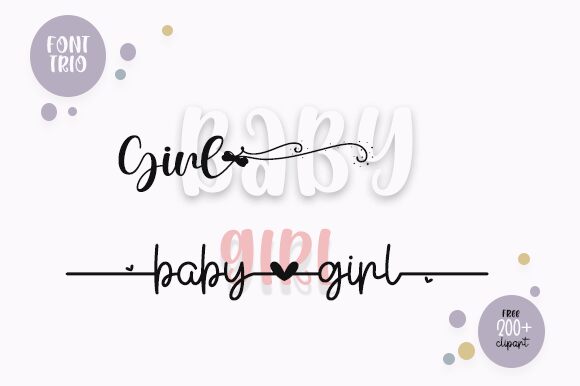
Cute, light and handmade, Baby Girl Monoline is the perfect font designed by Nopianti. It's suitable for creating eye-catching headlines, invitations, logos and typography projects. Bring your creative ideas to life with this unique monoline handwritten font.
Baby Girl Monoline